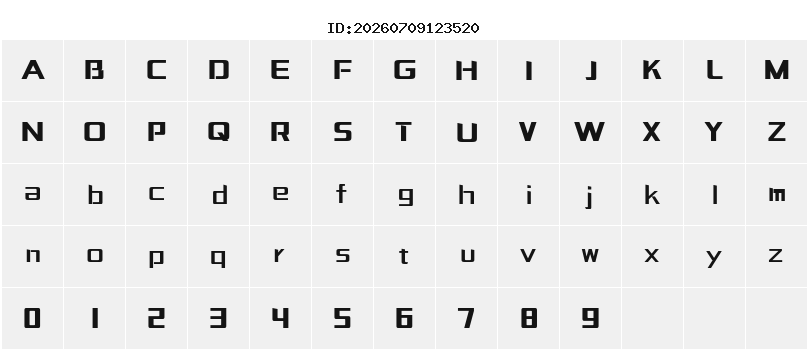
• Font Name: 三极力量体简-粗
• Designer: SJZK
About 三极力量体简-粗.ttf
三极力量体简-粗.ttf is a modern, elegant sans-serif font designed for ultimate readability and visual harmony. Perfect for branding, headlines, web design, and print materials.